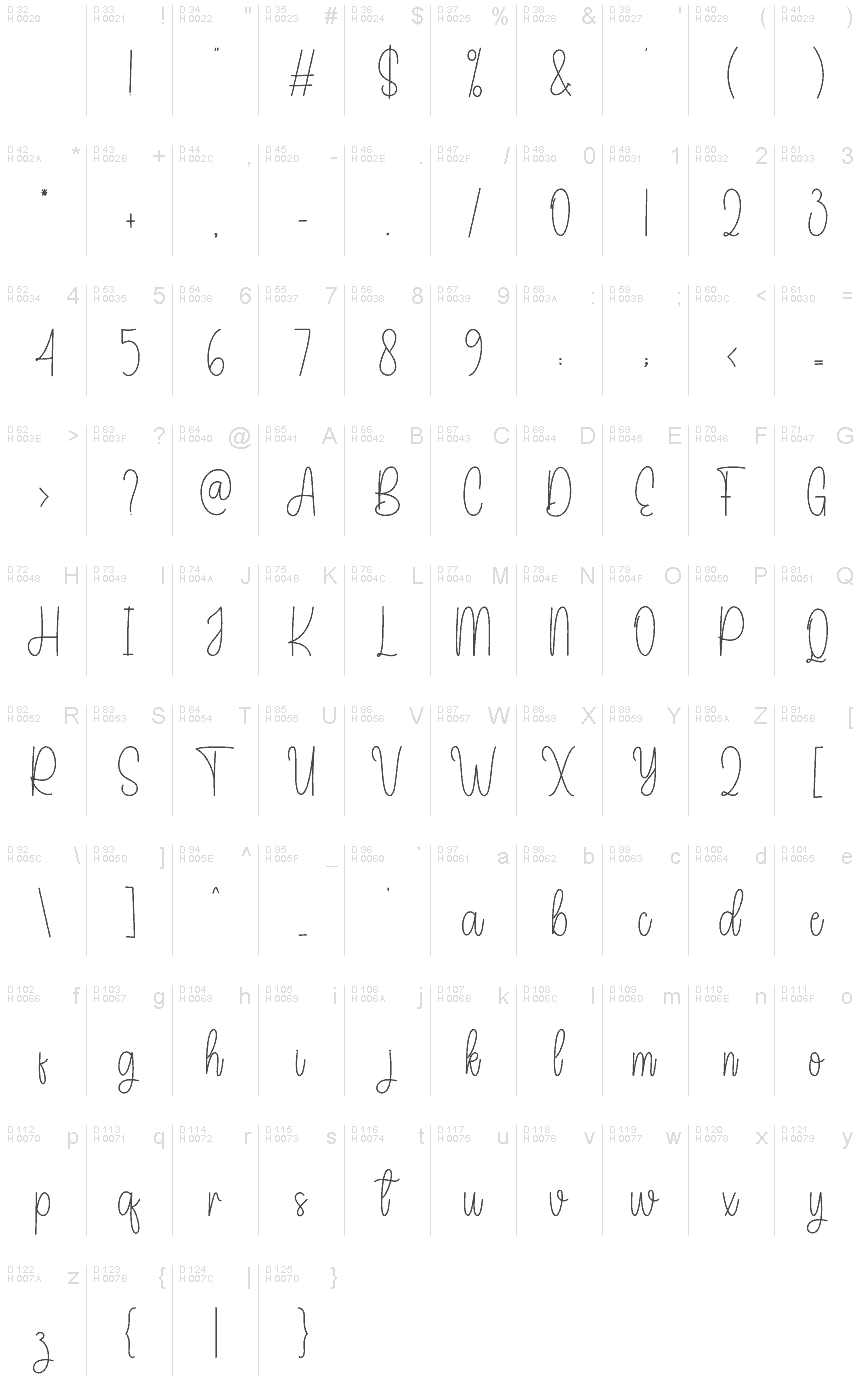
Oncomming 2
Oncomming 2 font by Andi Moz presents a flowing and elegant handwritten style. This condensed light font has a casual and effortless appearance with an approachable vibe, expressed through its modern script and beautiful curves.